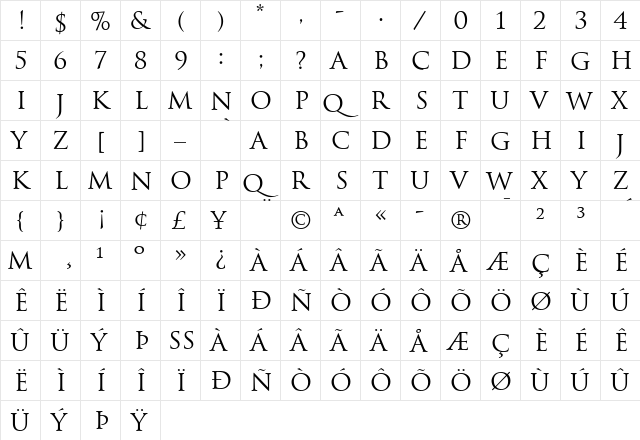
Trajan Regular
Design Context for Trajan Typeface
Trajan takes a measured approach to typography — its balanced proportions and neutral character make it a reliable workhorse for both digital and print work.